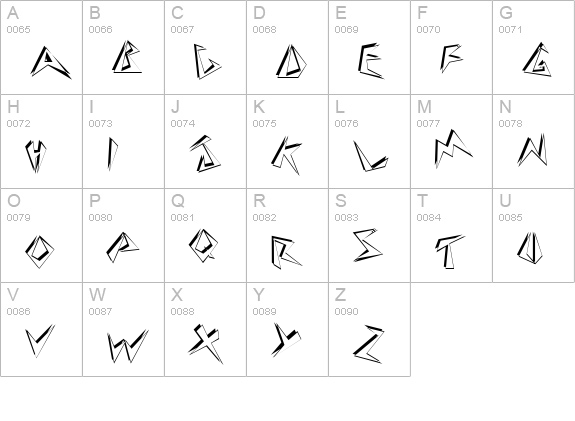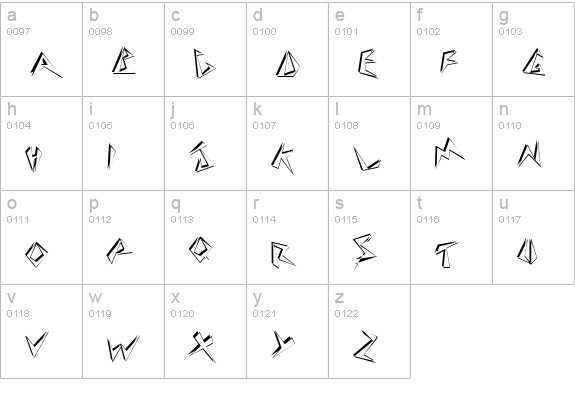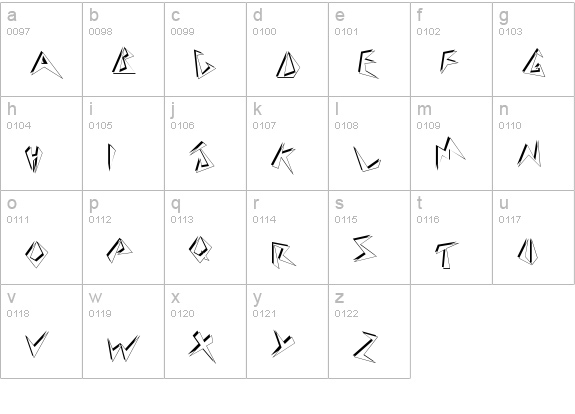
Galago Font Details
Galago font is a modern and stylish typeface that exudes elegance and sophistication. With its sleek lines and contemporary design, Galago is perfect for a wide range of projects, from branding to editorial design. This versatile font family includes a variety of weights and styles, making it suitable for both headings and body text. One of the best things about Galago font is that it is completely free to download. You can easily access this beautiful typeface at FontsMarket.com, where you can find a wide selection of high-quality fonts for all your design needs. Don't miss out on the opportunity to add Galago font to your collection today and elevate your projects with its timeless appeal.